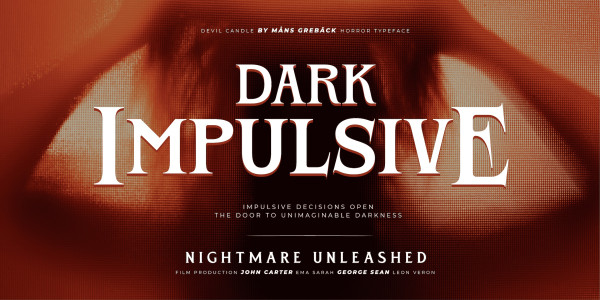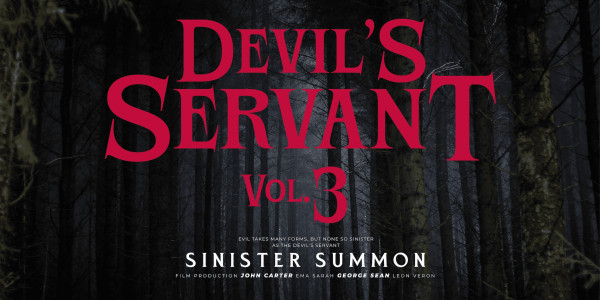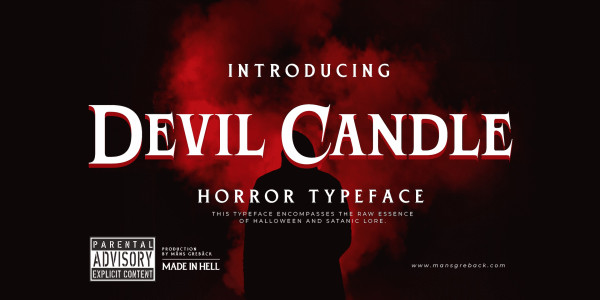
Devil Candle Font
Devil Candle Font evokes a symphony of sinister whispers, a reflection of the murky depths of hell.
Its refined serif characters, in narrow to wide stances, echo the undulating flames of a devil’s candle, flickering ominously at Halloween.